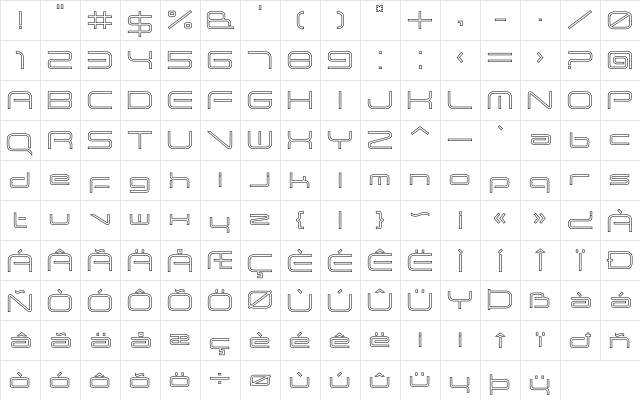
ANDTIOH Zero Regular
| Designer | Andrii Shevchyk |
Design Context for ANDTIOH Zero Typeface
ANDTIOH Zero is a composed and adaptable typeface that performs quietly and consistently across a wide range of design contexts.